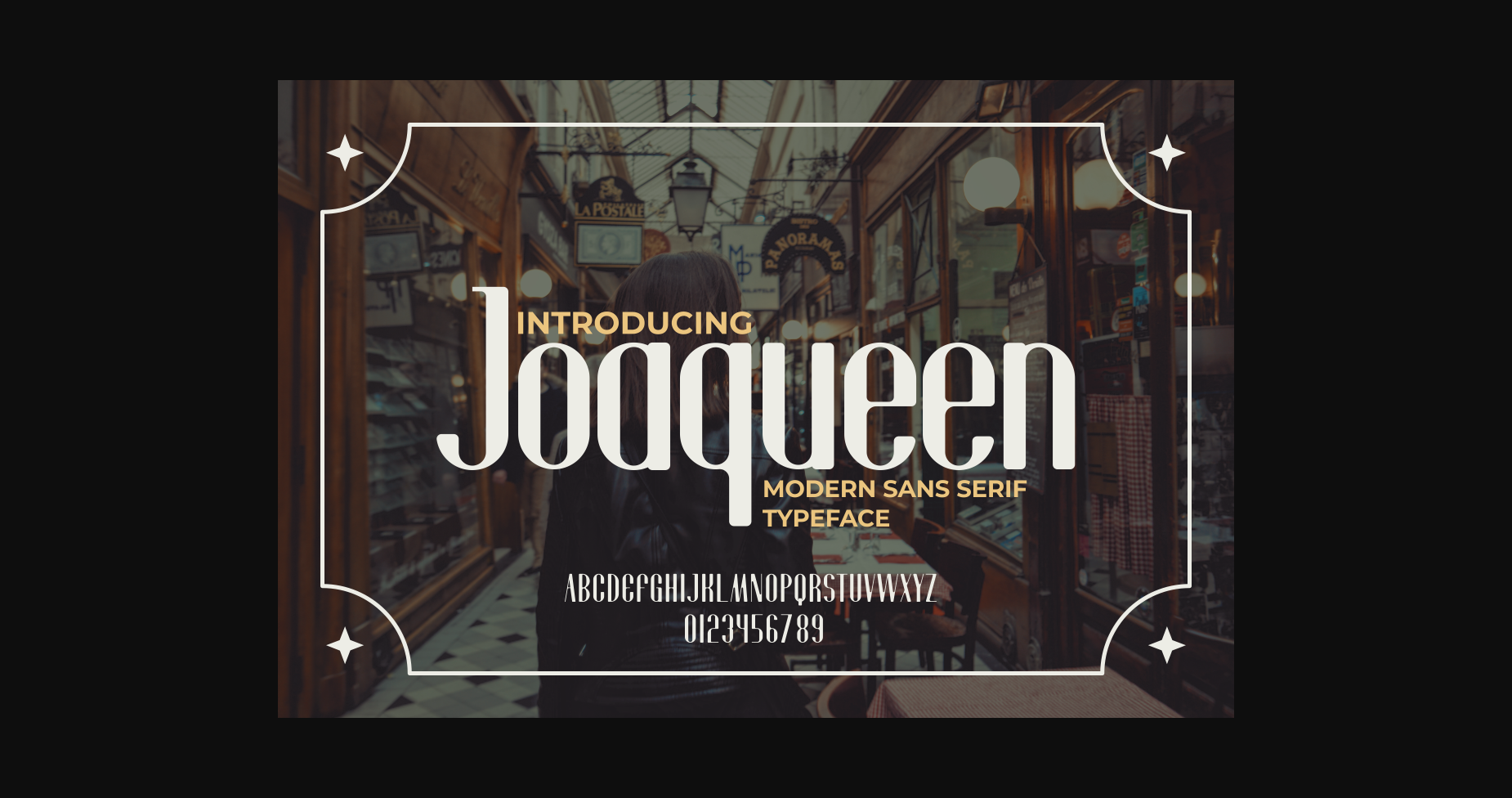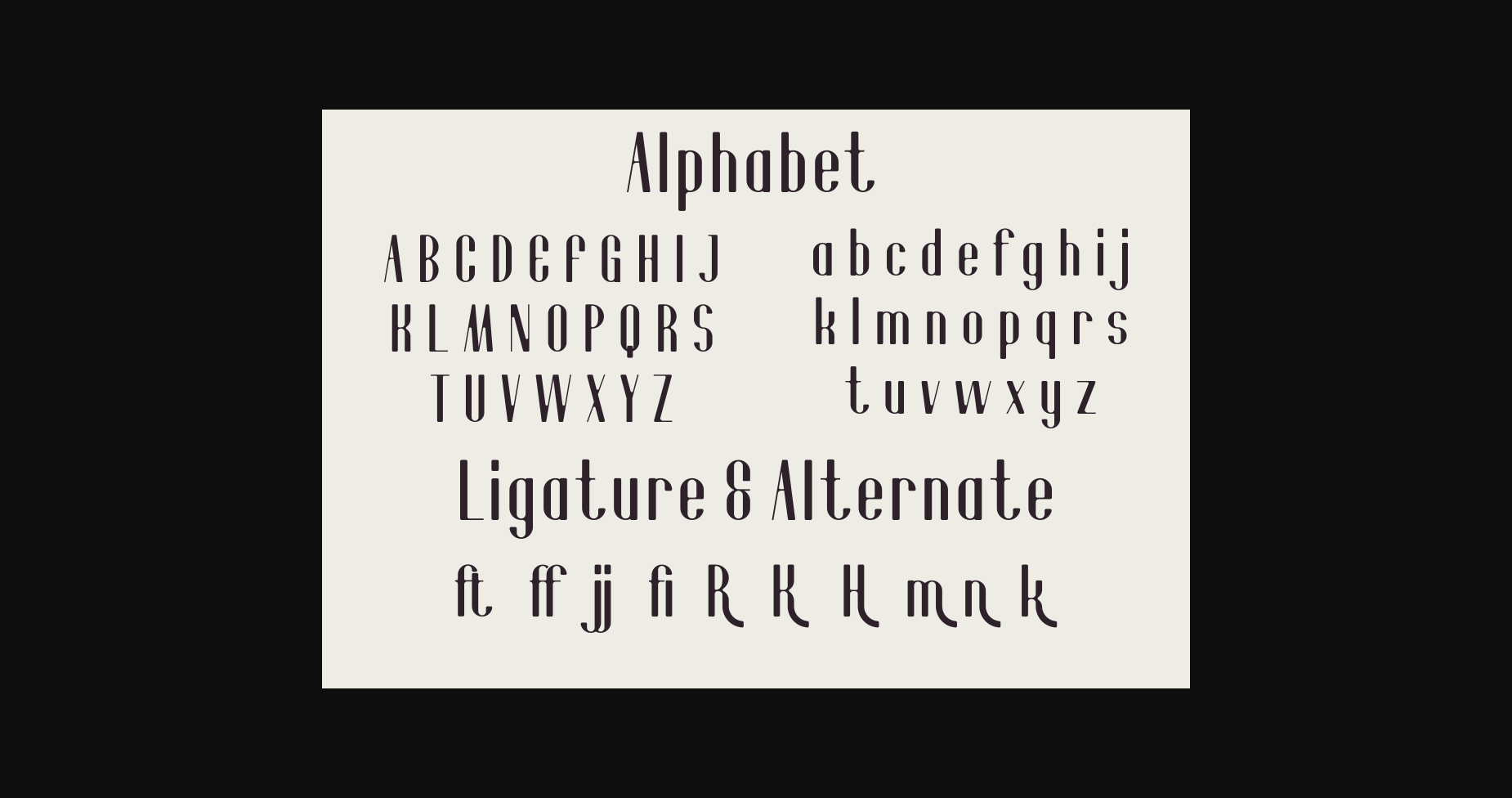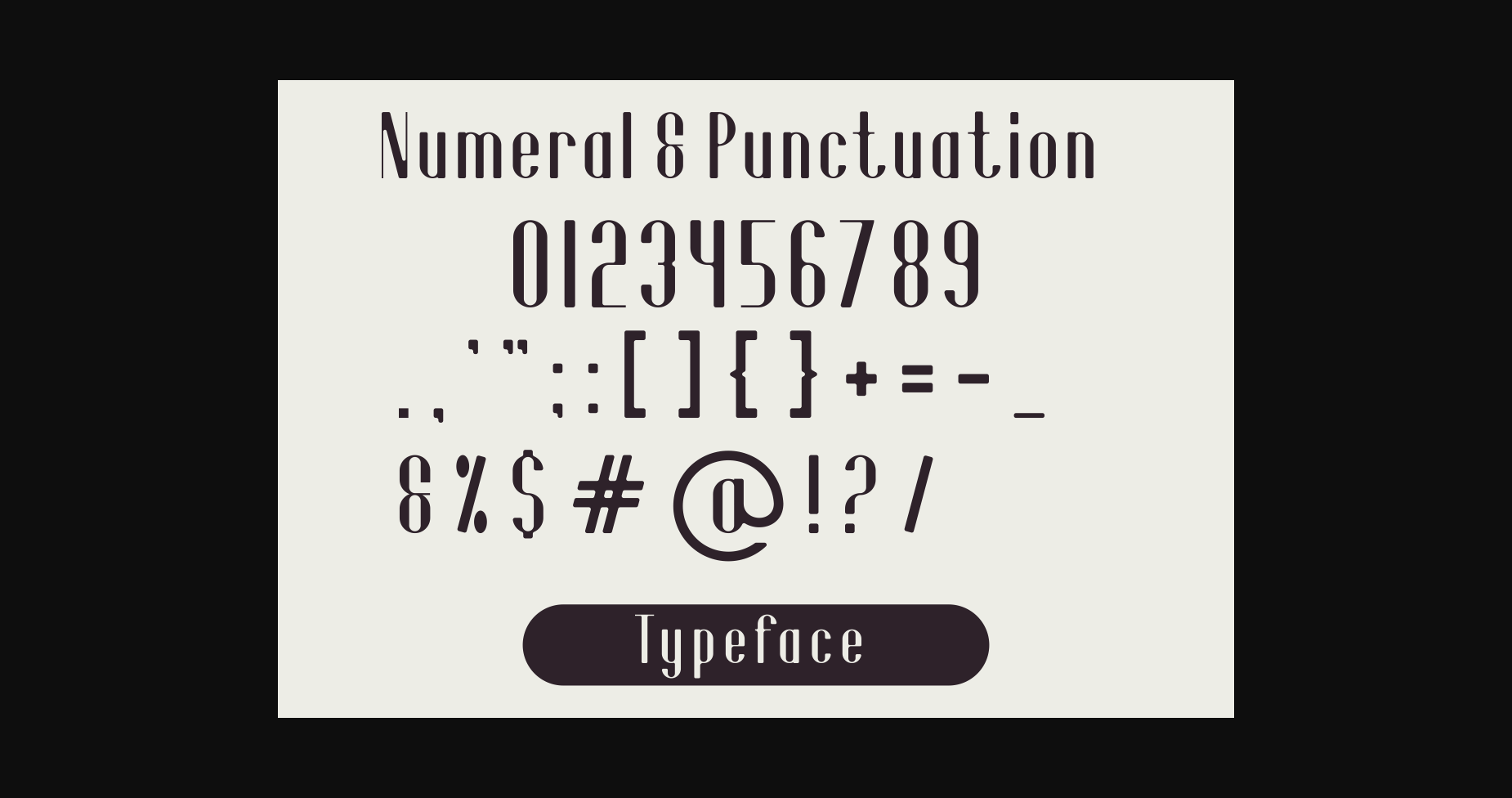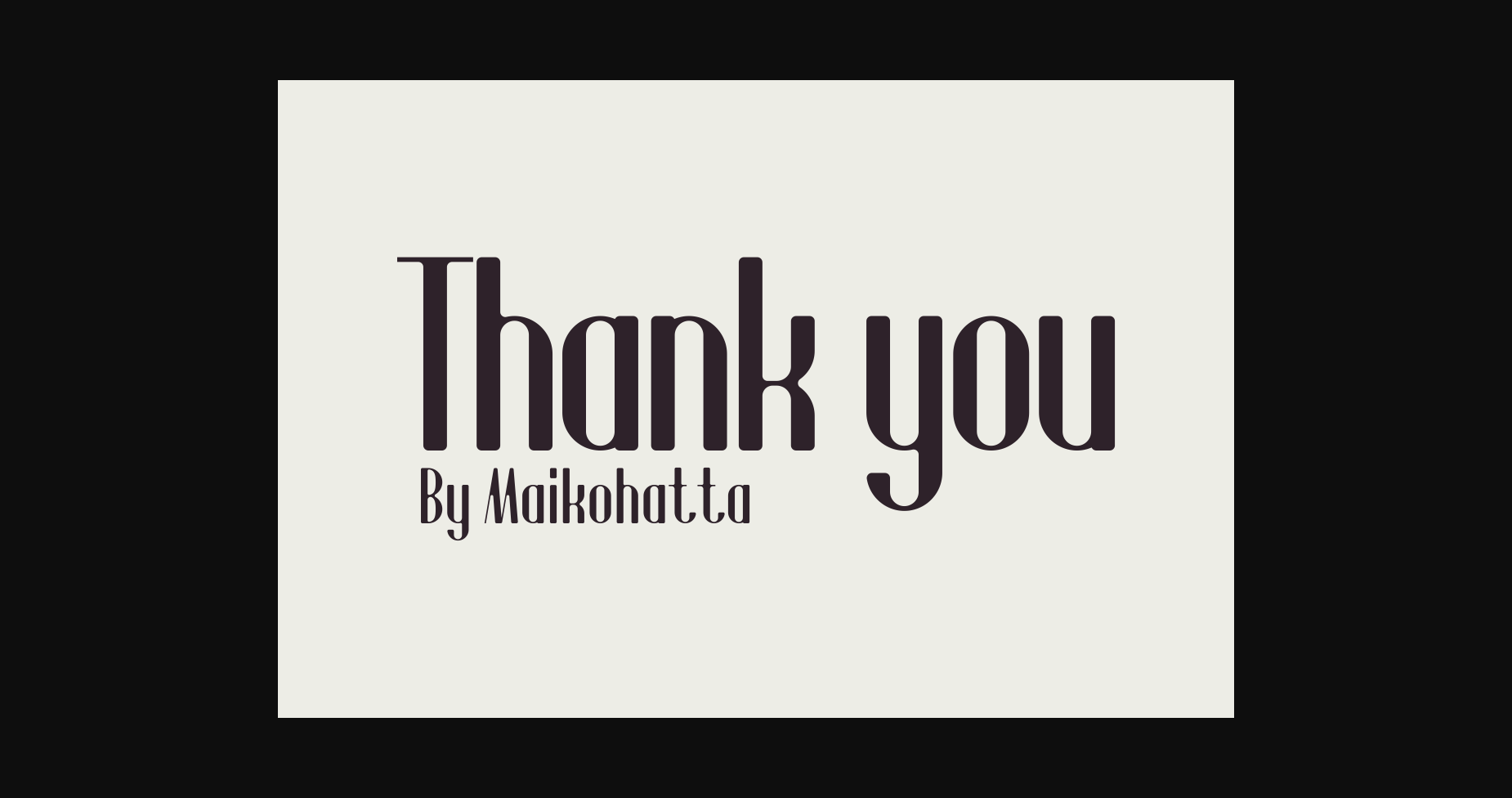
About Joaqueen Font
Joaqueen is a bold and authentic sans serif font suitable for any branding project such as logos, T-shirt printing, esports, and many more. Outstanding in a wide range of contexts, this font is guaranteed to make your work extraordinary!